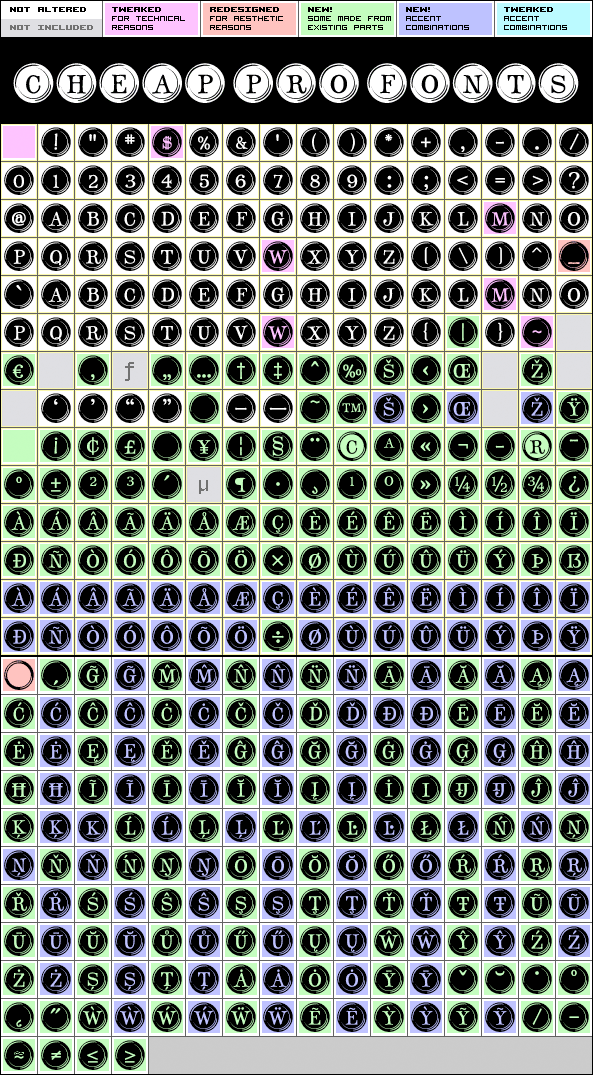
Type Keys Filled Pro
Type Keys Filled Pro by Ronna Penner
Ronna Penner
379 glyphs!
(100 in original)
no kernpairs ;)
(none in original)
A range of retro initials mimicking the keys of an old style typewriter. Expanded from just a basic ASCII character set to our usual large CheapProFonts selection of glyphs. (I'm not sure all of them appears in the beginning of words, though ;)
Type Keys Filled Pro is a professionally reworked font that contains an extended character set for setting text in 65 languages requiring more than the basic A-Z!